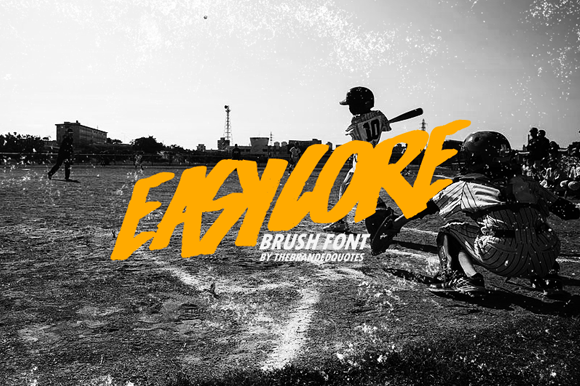
Easycore Font
Easycore is a font inspired by Pop Punk/Rock/Hardcore Music and the Skateboarding world. Works with your band name, album covers and hand-painted style projects.
Easycore was used in an awesome lyric video from Faultlines!
Also used by The Offspring: https://youtu.be/9oWclEZprdc